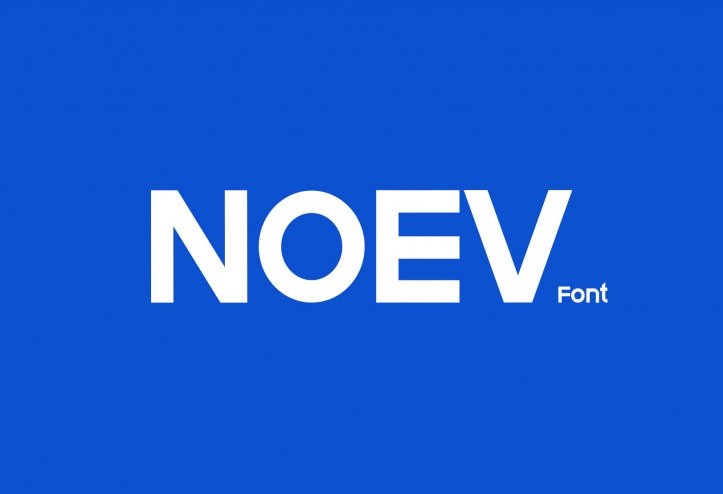
Noev Font
This is sans serif typeface font by freeject.net Design, designed with geometric shapes, bold, strong curves, and modern feels. This font is such in traditional style which looks classic without any accent. This is like having a firm impression at a glance.
Noev Sans Serif Font is completed by bold and regular style. In addition, it’s also having an alphabet, numeric, and symbols. And it’s more complete since it has an uppercase and lowercase version. It can be said that this is in full package since it has everything in one font.
What is interesting, this font has endless possibilities to be used on anything. It suits both the paragraph and title, it depends on how you want to use this font. It might be able to complement your creative design or if you want to you can use this for your digital notes.
It’s regular, classic, yet flexible to be used on anything. It’s possible to be used on any campaign project such as posters, flyers, digital advertisement, and more. It might suit any theme as well. However,